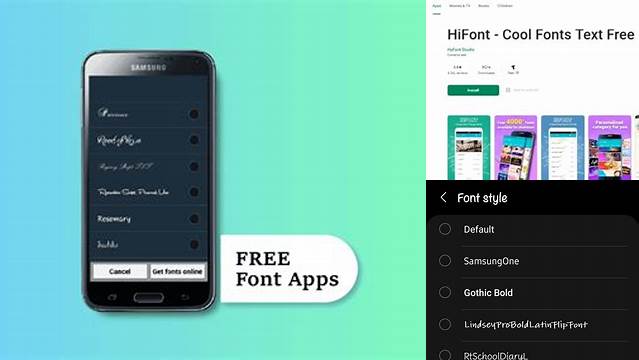
Best Free Font Apps For Your Samsung Phone
Hey guys! Want to spice up your Samsung phone's look? One of the easiest ways is by changing the font! But with so many font apps out there, how do you choose the best free font app for Samsung? Don't worry, we've got you covered. This guide will walk you through some fantastic options to give your phone a fresh, new vibe. We'll explore various apps, what they offer, and how to make the most of them. So, let's dive in and find the perfect font to match your style! Choosing the right font can significantly enhance your phone's usability and aesthetic appeal. Think about it – you look at your phone screen countless times a day, so why not make it visually pleasing?
1. Cool Fonts for Samsung: A Comprehensive Guide
Finding cool fonts for your Samsung device can be an exciting journey, and there are plenty of options to explore. Many users are always on the lookout for unique and stylish fonts that can set their phone apart. When we talk about cool fonts for Samsung, we're not just talking about aesthetic appeal; we're also considering readability and how well a font complements your overall phone theme. Apps like HiFont and iFont offer a vast library of fonts, from elegant scripts to bold, modern designs. You can browse through categories, preview fonts on your screen, and easily apply them to your device. Remember to check for user reviews and ratings to ensure you're choosing fonts that are not only cool but also reliable and compatible with your Samsung phone. Experimenting with different font styles can be a fun way to personalize your phone and make it truly yours. Think of the fonts as an extension of your personality, allowing you to express yourself through the visual elements of your device. So, go ahead and dive into the world of cool fonts for Samsung, and discover the perfect match for your style!
2. Top Font Apps for Samsung: An Overview
Navigating the world of font apps can feel a bit overwhelming, but there are some top font apps for Samsung that consistently stand out. Apps like Monotype FlipFont, which often comes pre-installed on Samsung devices, provide a straightforward way to change your phone's font. However, if you're looking for more variety, apps like iFont and HiFont offer a much wider selection, including both free and paid options. These apps typically feature user-friendly interfaces, allowing you to easily browse, preview, and apply fonts. They also often include features like font previews and compatibility checks to ensure the fonts work seamlessly on your device. When choosing a font app, consider factors like the number of fonts available, the ease of use, and any additional features offered. Some apps also include font customization options, allowing you to adjust the size and style of your chosen font. The best part is that most of these top font apps are readily available on the Google Play Store, making it easy to download and start experimenting with different fonts. Ultimately, the goal is to find a font app that not only offers a wide range of stylish options but also provides a smooth and hassle-free experience.
3. Free Font Downloads for Samsung: Where to Find Them
Looking for free font downloads for Samsung can sometimes feel like searching for a hidden treasure, but there are actually several great resources available. One of the most convenient places to start is the Google Play Store, where you can find numerous font apps that offer a variety of free fonts. Apps like HiFont, iFont, and FontFix are popular choices, providing access to extensive font libraries without costing you a dime. These apps often update their font selections regularly, so you'll always have fresh options to choose from. Another great way to discover free fonts is by exploring online font repositories. Websites like DaFont, Google Fonts, and FontSpace offer a vast array of fonts that you can download and install on your Samsung device using font management apps. Just be sure to check the licensing terms for each font to ensure they are free for personal use. When downloading fonts from the internet, it's always a good idea to use a reputable source to avoid any potential security risks. With a bit of searching, you can easily find a plethora of free font downloads to personalize your Samsung phone to your heart's content.
4. Samsung Font Changer Apps: A Comparison
When it comes to Samsung font changer apps, there's a diverse range of options available, each with its own unique features and benefits. Comparing these apps can help you make an informed decision and find the one that best suits your needs. For instance, Monotype FlipFont is a common choice, often pre-installed on Samsung devices, offering a simple and straightforward font-changing experience. However, if you crave a larger selection and more customization options, apps like iFont and HiFont are worth considering. These apps provide access to extensive font libraries, including both free and premium fonts. They also often include features like font previews, compatibility checks, and the ability to adjust font size and style. Another app to consider is FontFix, which allows you to change system fonts on rooted devices, giving you even greater control over your phone's appearance. When comparing these apps, think about factors like the number of fonts available, the ease of use, user reviews, and any additional features that might be important to you. Reading user reviews can provide valuable insights into the app's performance and reliability. By carefully comparing Samsung font changer apps, you can find the perfect tool to transform your phone's look and feel.
5. Best Fonts for Samsung: Our Top Picks
Choosing the best fonts for Samsung can be a personal endeavor, as what looks appealing to one person may not resonate with another. However, there are some fonts that consistently rank high in popularity and readability. For those who prefer a clean and modern look, fonts like Roboto, Open Sans, and Lato are excellent choices. These sans-serif fonts are known for their legibility and versatility, making them suitable for a wide range of applications. If you're seeking a more elegant and sophisticated vibe, consider serif fonts like Times New Roman, Georgia, or Playfair Display. These fonts add a touch of classic charm to your device's interface. For a playful and creative feel, you might explore script fonts or handwritten-style fonts, but be mindful of readability, especially for long passages of text. When selecting the best fonts for your Samsung phone, think about your personal style, the overall theme you want to create, and how the font will impact your device's usability. It's always a good idea to preview fonts on your screen before applying them to ensure they look and feel right. Ultimately, the best fonts for Samsung are those that you find visually pleasing and easy to read, enhancing your overall phone experience.
7. Free Samsung Fonts: What Are Your Options?
Exploring free Samsung fonts opens up a world of possibilities for personalizing your device without spending any money. Samsung phones often come with a few pre-installed fonts, such as SamsungOne and Roboto, which are excellent starting points. However, if you're looking for more variety, there are plenty of free fonts available through the Google Play Store and other sources. Apps like iFont, HiFont, and FontFix offer extensive libraries of free fonts that you can download and apply to your Samsung phone. These apps often categorize fonts by style, making it easier to find the perfect match for your taste. Another great way to discover free Samsung fonts is by exploring online font repositories. Websites like DaFont, Google Fonts, and FontSpace host a vast collection of fonts, many of which are free for personal use. You can download these fonts and install them on your phone using a font management app. When downloading fonts from the internet, it's important to use reputable sources to ensure the files are safe and compatible with your device. With a little bit of searching, you can find an array of free Samsung fonts to customize your phone's appearance and make it truly yours. Don't hesitate to experiment with different font styles to see what resonates with you.
8. Font Style for Samsung: Finding Your Perfect Match
The ideal font style for Samsung devices varies from person to person, as it depends on individual preferences and needs. Some people prefer clean, modern sans-serif fonts for their legibility, while others gravitate towards more decorative or script-style fonts for a touch of personality. When choosing a font style, consider factors like readability, the overall theme you want to create, and how the font will complement your device's interface. Sans-serif fonts like Roboto, Open Sans, and Lato are popular choices for their clean lines and versatility, making them suitable for a wide range of applications. Serif fonts, such as Times New Roman or Georgia, can add a touch of elegance and formality to your phone's appearance. Script fonts and handwritten-style fonts can inject personality and creativity into your device, but it's important to use them sparingly to avoid compromising readability. To find your perfect font style for Samsung, experiment with different fonts and preview them on your phone's screen. Consider how the font looks in different apps and settings, and how it affects your overall user experience. The right font style can enhance both the aesthetic appeal and usability of your Samsung device, so it's worth taking the time to find one that truly suits your taste and needs.
21. How to Install Fonts on Samsung Without Root: A Simple Guide